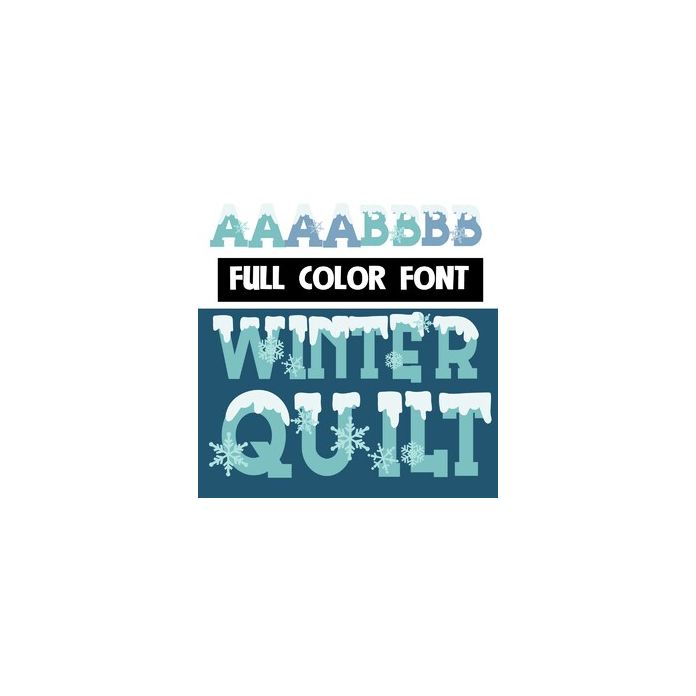
This full-color font features blocky lettering with snow and snowflakes. There is an alt case with alternative color choices that you can access thru your system's character map.